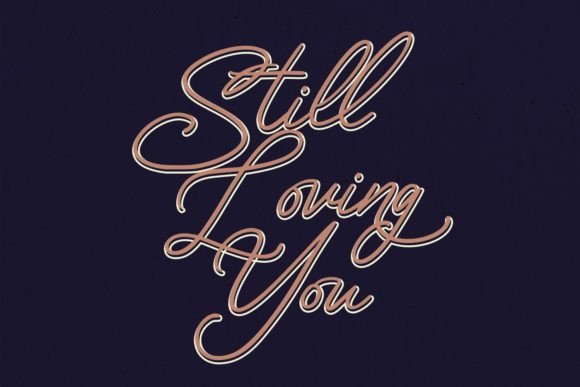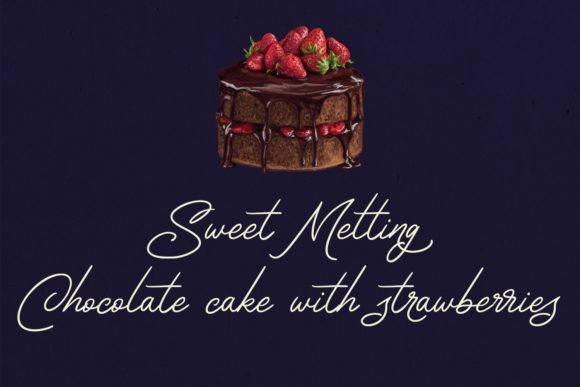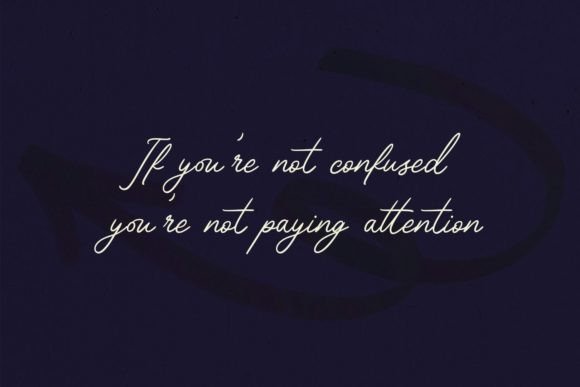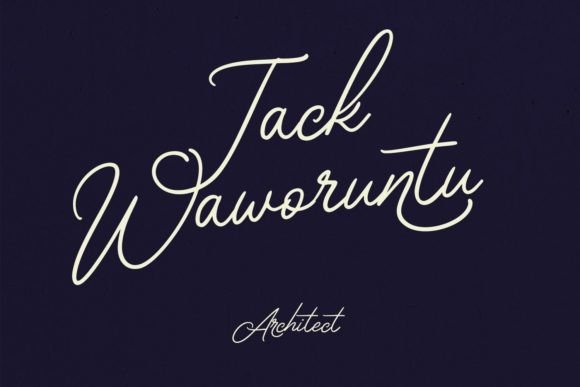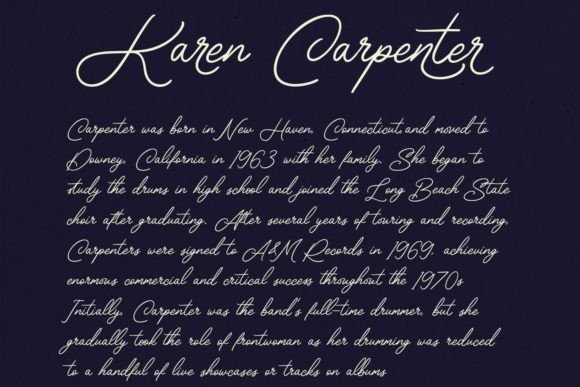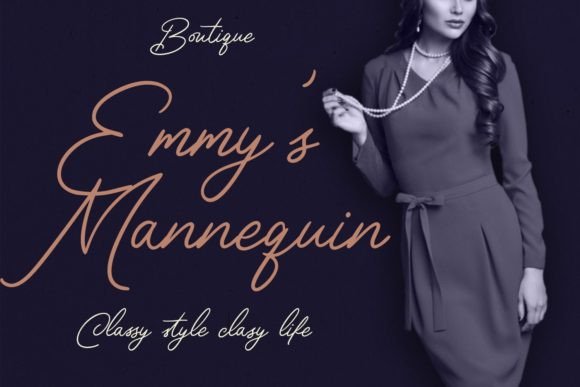
The Fazerdaze Font: A Fun and Creative Companion for Designers
Have you ever been in the middle of a design project, and suddenly, the font you’ve been using just doesn’t cut it? You’re not alone! I recall a recent experience where I was working on a logo design for a trendy coffee shop. The client wanted something fun, yet elegant. After scouring through my font library, I stumbled upon Fazerdaze – a casual handwritten script font that instantly caught my attention. With its regular contrast stroke, fun character, and a bit of ligature and alternates, Fazerdaze was exactly what I needed to elevate my design.
An Honest Review of Fazerdaze
- ✨ Unique Character: Fazerdaze has a distinct personality that sets it apart from more traditional fonts. Its casual, handwritten feel makes it perfect for designs that require a personal touch.
- ✅ Versatility: This font is incredibly versatile. It works well for logo design, social media posts, movie titles, book titles, and even long text letters.
- ✅ OpenType Features: Fazerdaze comes with a range of OpenType features, including ligatures and stylistic alternates, which give you the flexibility to create stunning, customized designs.
While Fazerdaze is an excellent font, there are a few things to keep in mind:
- ⚠️ Legibility at Small Sizes: Like many script fonts, Fazerdaze can become a bit tricky to read at very small sizes. It’s best used at larger sizes or for shorter texts.
- 🤔 Pairing with Other Fonts: While Fazerdaze pairs well with both sans and serif fonts, finding the perfect match can take some experimentation.
The Inspiration Behind Fazerdaze
While the actual origins of Fazerdaze are not well-documented, it’s easy to imagine that its creation was inspired by a desire to capture the playful essence of handwritten scripts. The designer likely sought to create a font that was both fun and versatile, capable of adding a personal touch to a variety of design projects.
Q: What makes Fazerdaze suitable for logo design?
A: Fazerdaze’s unique character and versatility make it an excellent choice for logo design. Its casual, yet elegant feel can help a brand stand out.
Q: Can I use Fazerdaze for body text?
A: While Fazerdaze can be used for longer texts, it’s best suited for shorter passages or headings due to its script nature and potential legibility issues at small sizes.
Q: Does Fazerdaze support OpenType features?
A: Yes, Fazerdaze comes with OpenType features, including ligatures and stylistic alternates, which can enhance your design work.